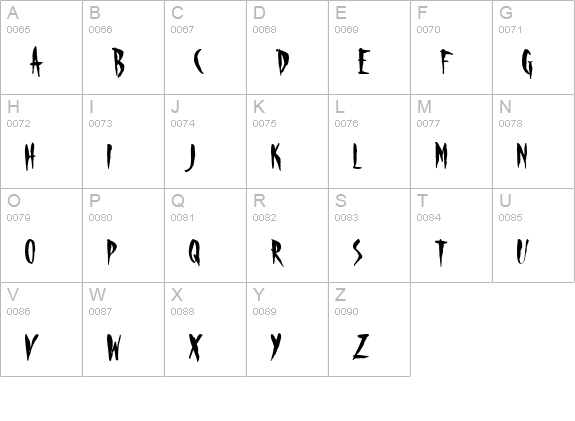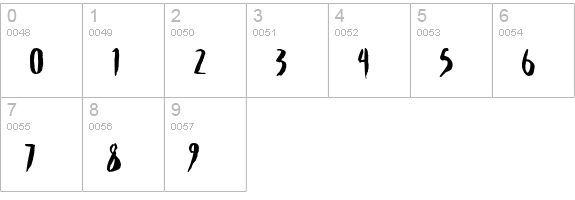
Filth AOE Font Details
Filth AOE font is a striking display typeface that exudes a raw and gritty aesthetic. With its jagged edges and distressed appearance, this font is perfect for projects that require a bold and edgy look. Whether you're designing posters, album covers, or social media graphics, Filth AOE will make a powerful statement. The best part? Filth AOE font is available for free download at FontsMarket.com. Don't miss out on this unique and versatile font that will add a touch of urban flair to your designs. Download now and let your creativity run wild with Filth AOE!